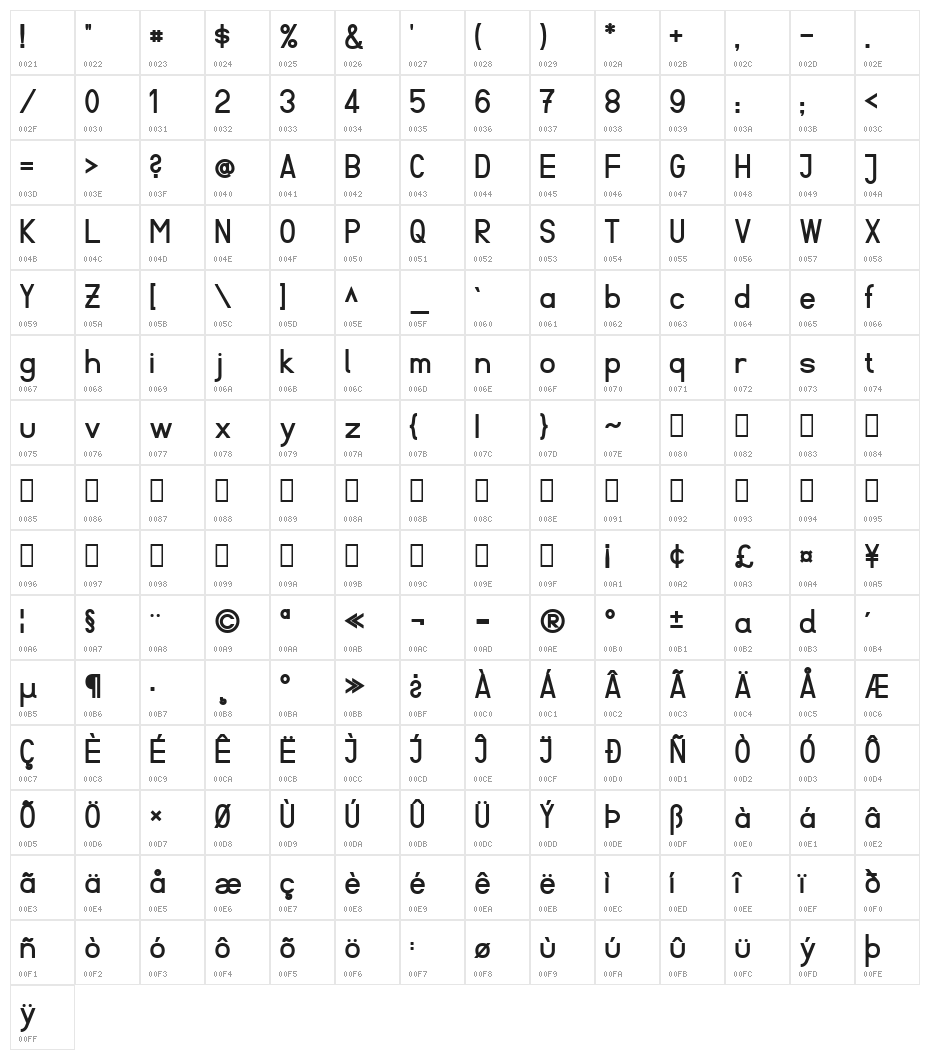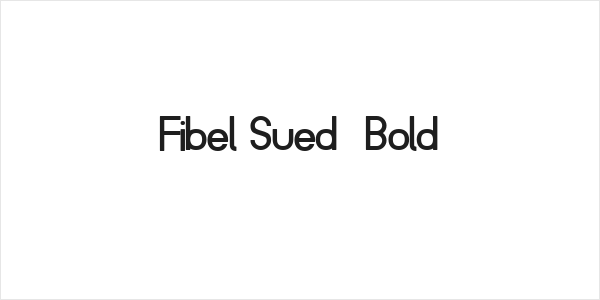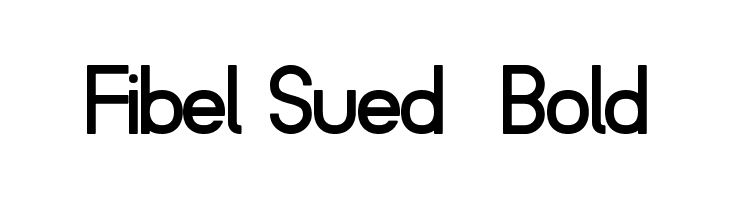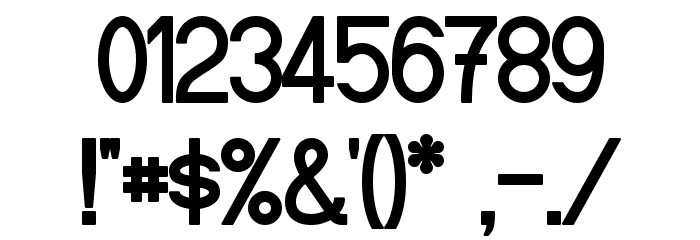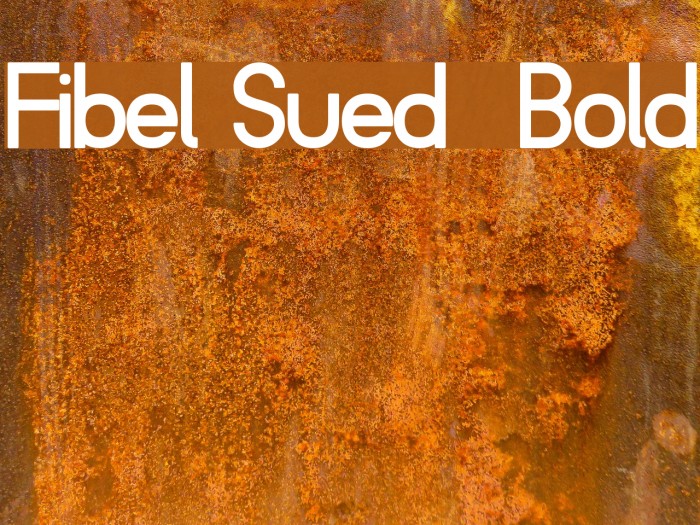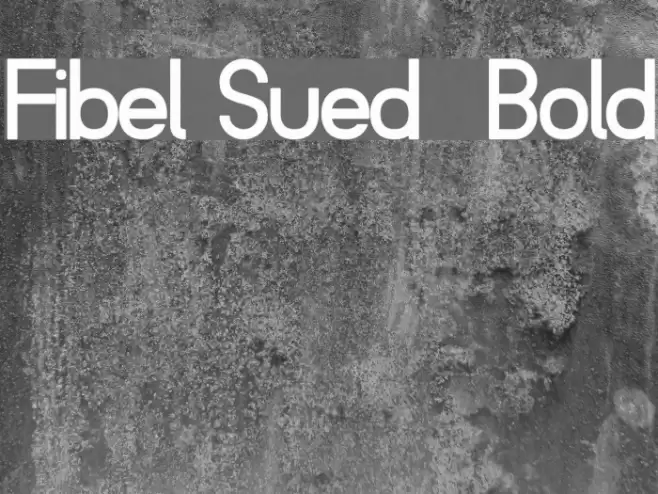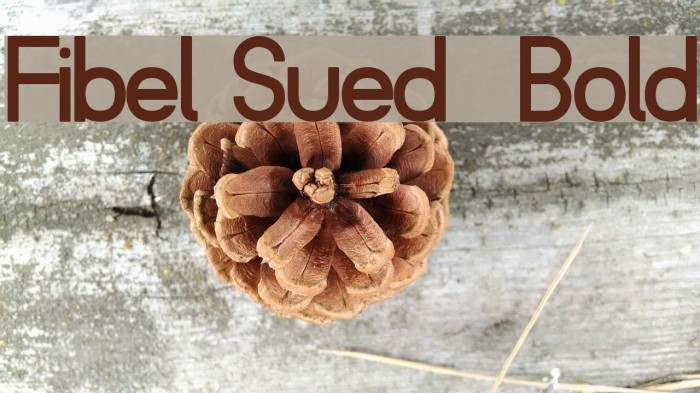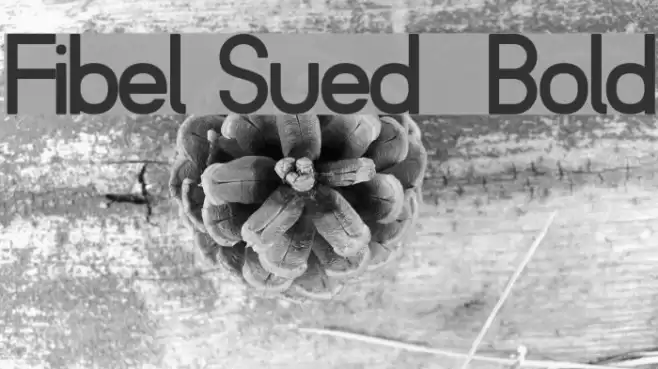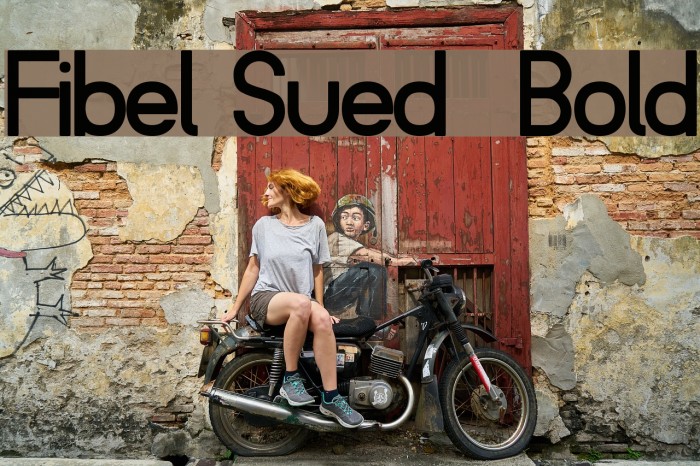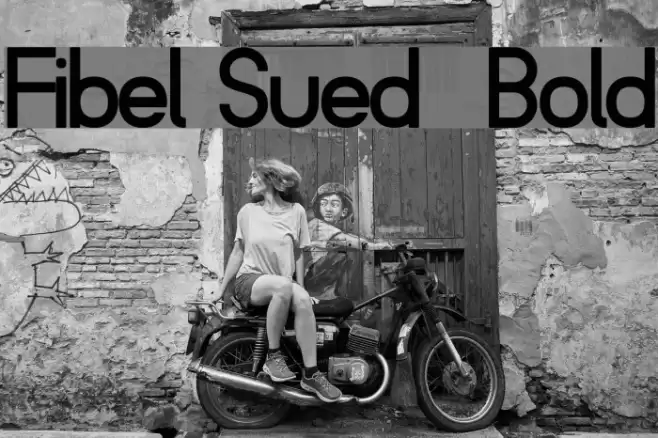
Fibel Sued Bold Font
Fibel Sued Bold Description
This typeface features a bold and geometric design, characterized by clean lines and a modern aesthetic. The uppercase letters are uniform in height, with a consistent stroke width that conveys a sense of stability and strength. The lowercase letters maintain the same geometric style, offering a harmonious balance between the two cases. The numerals are clear and legible, making them suitable for various applications. Special characters are included, maintaining the overall design consistency. The font's simplicity and clarity make it versatile for both digital and print media.
| Use Case | Headlines, Logos, Branding |
| Proposed Projects | Ideal for branding, advertising, headlines, and digital interfaces where clarity and impact are essential. |